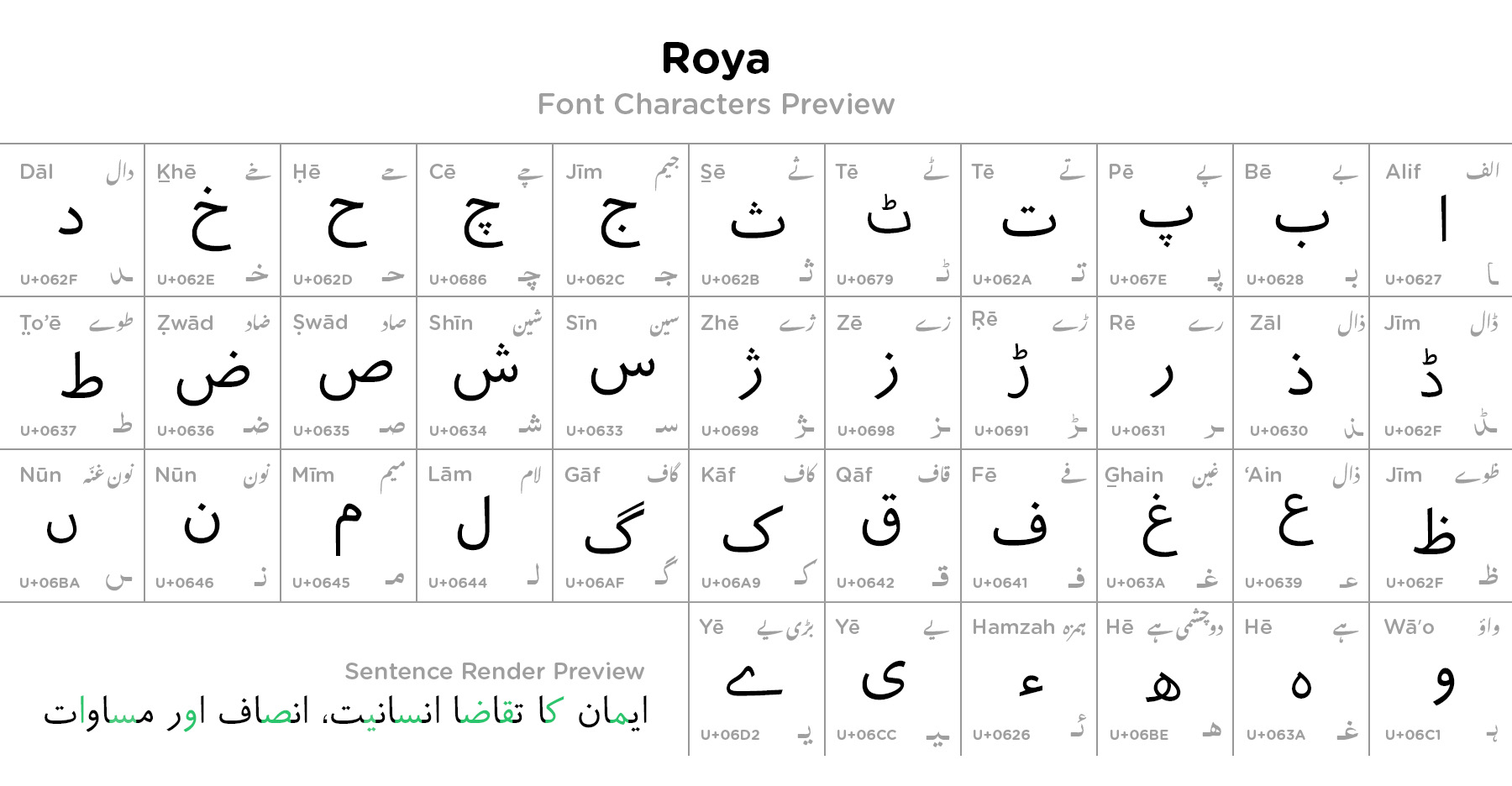
Roya, developed by Sharif FarsiWeb, Inc., is a bold and rounded Arabic font released on June 11, 2018. Drawing inspiration from the Naskh and Nastaliq scripts, it offers a simple yet impactful design with horizontal emphasis, occasionally incorporating subtle Nastaliq influences. With 323 characters and 260 glyphs, this lively font supports Urdu, Arabic, Latin, and Symbols, helping in multilingual projects. Moreover, its support across various Unicode blocks, including Basic Latin, Arabic, Currency Symbols, and more, gives it an advantage over various typefaces. Its normal font-weight and medium width ensure readability and versatility across different applications. It is present in two different weights including:
The font’s bold and thick appearance, coupled with rounded curves and edges, creates a soft and inviting feel. It offers an informal charm, with subtle irregularities adding character to the overall word rather than individual letters. Roya is best suited for short texts where it’s impactful strokes and informal style can shine. Whether used in branding, advertising, or posters, its unique design adds visual interest and personality to any project. You can use this font to make your text feel welcoming and pleasing to readers.